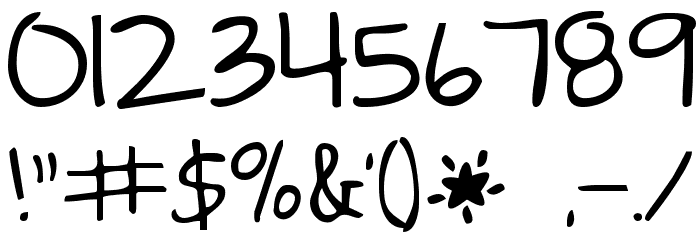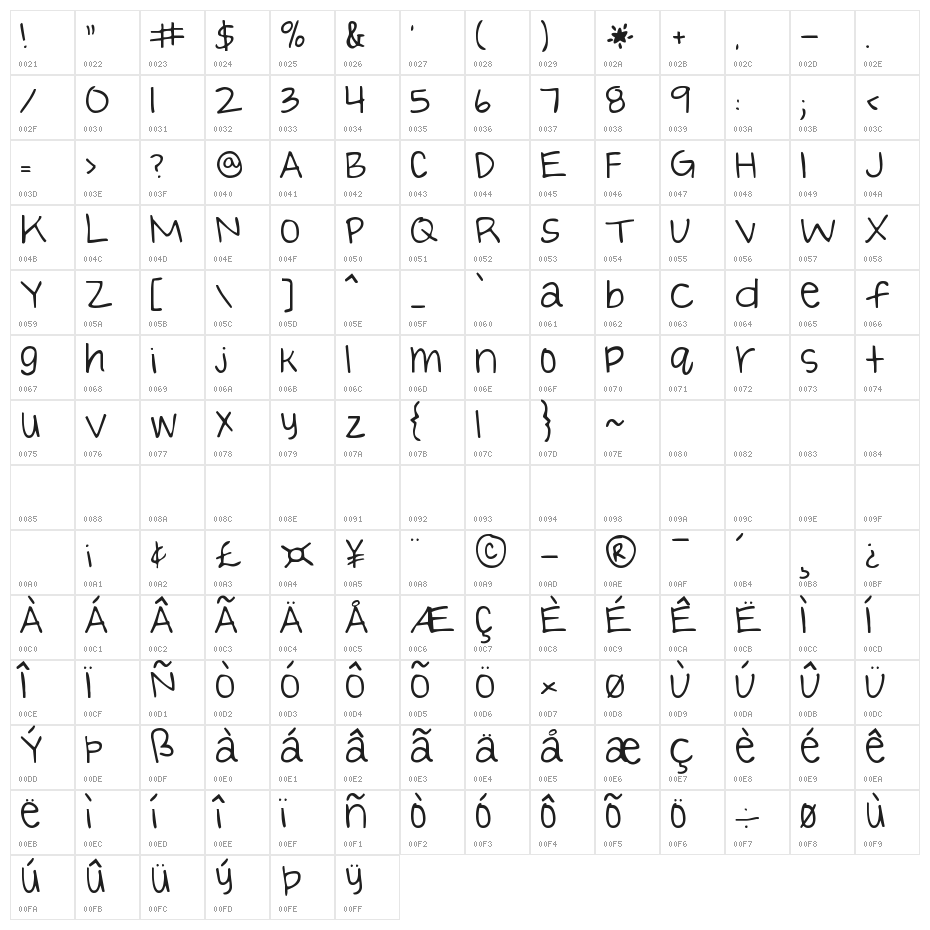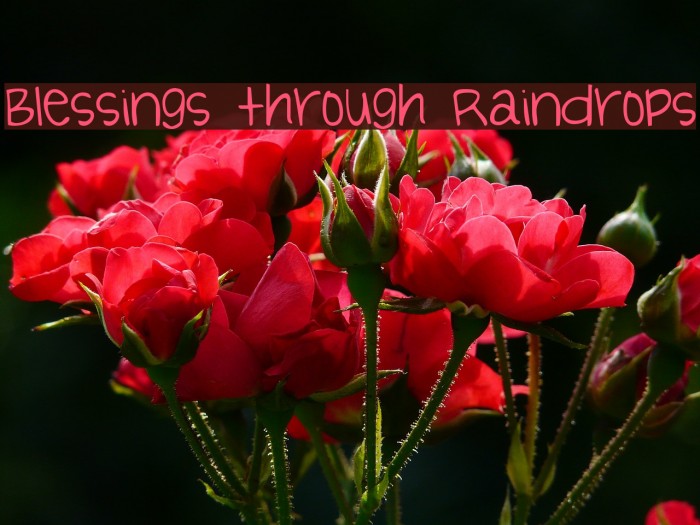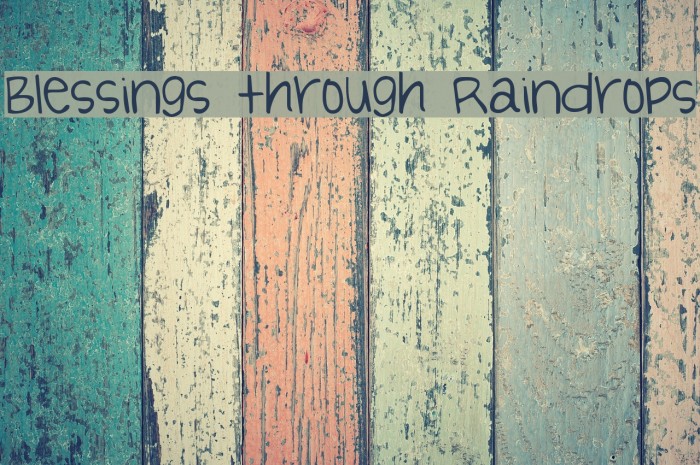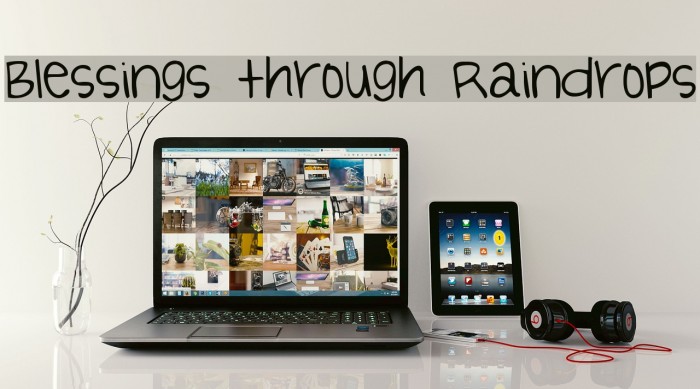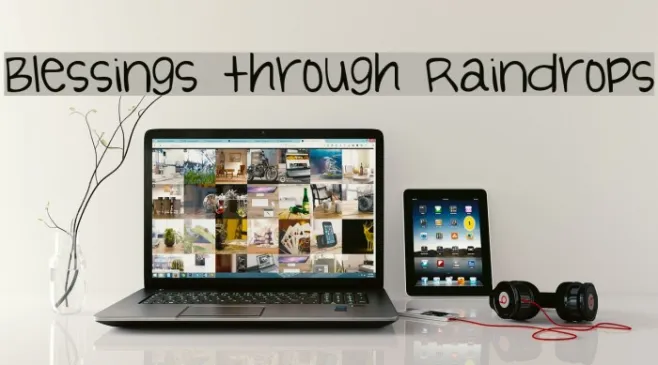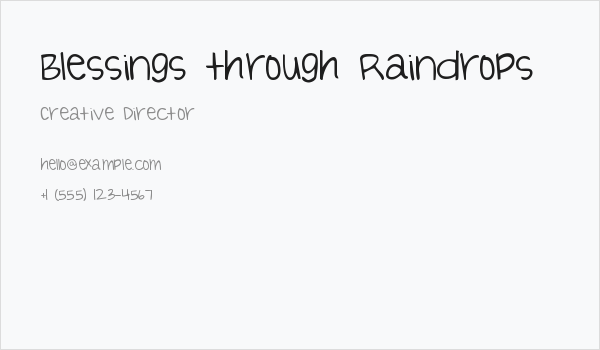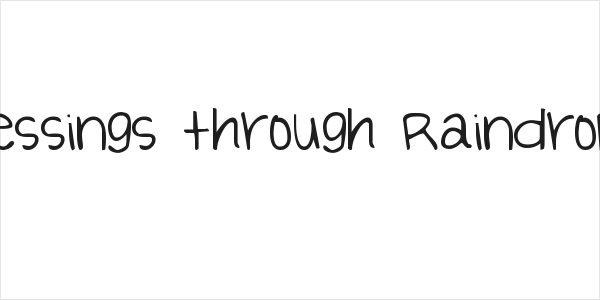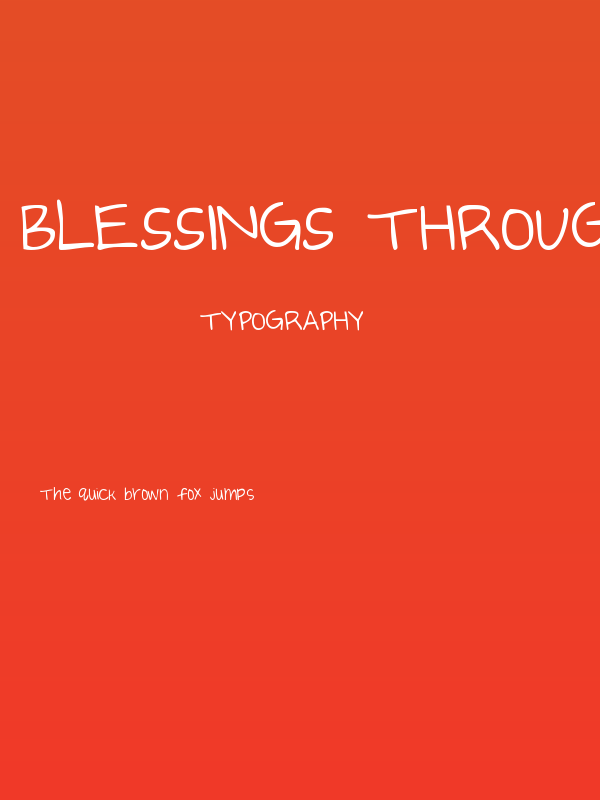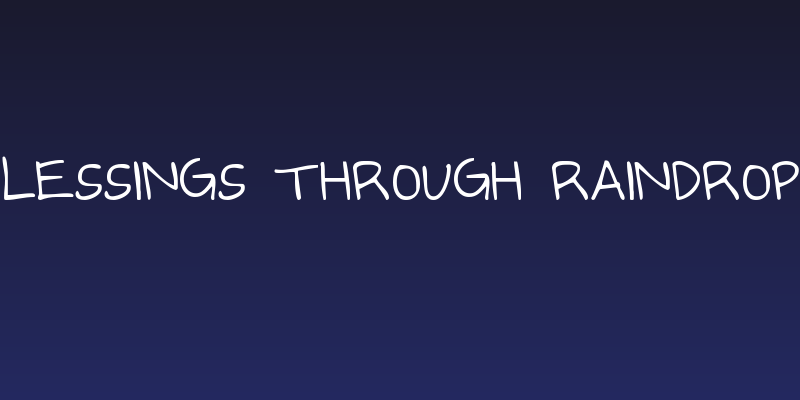
Blessings through Raindrops Font
Blessings through Raindrops Description
This font exudes a playful and casual handwritten style, characterized by its smooth, rounded edges and slightly irregular letterforms that mimic natural handwriting. The uppercase and lowercase letters maintain a consistent flow, with a slight tilt that adds to its informal charm. Numbers and special characters are crafted with the same whimsical touch, ensuring a cohesive look across all text. The font's simplicity and readability make it versatile for various design projects, while its unique personality adds a touch of warmth and friendliness.
| Use Case | Greeting cards, Informal branding, Children's books |
| Proposed Projects | Ideal for greeting cards, children's books, personal blogs, and informal branding projects. |